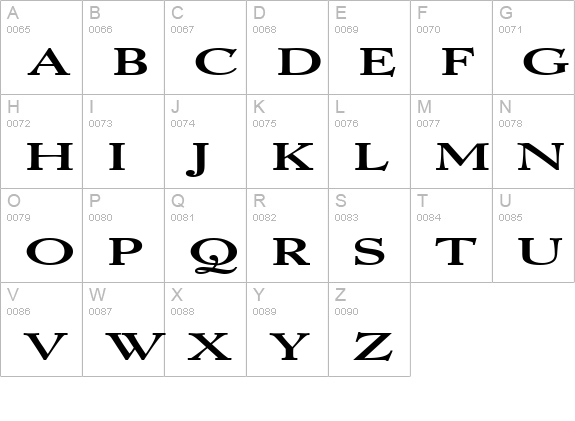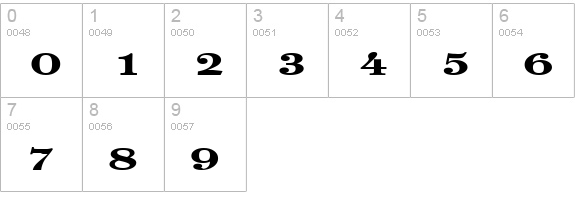
Luciano Extended Bold is a strong, high-contrast, extended-width variant in the Luciano typeface family \xE2\x80\x94 well suited to headlines, attention-grabbing titles, and strong calls-to-action.
Luciano Extended Bold is a striking and commanding typeface that demands attention with its bold and assertive presence. This extended version of the Luciano font family exudes confidence and strength, making it perfect for headlines, titles, and any design project that requires a bold statement. With its sleek lines and modern aesthetic, Luciano Extended Bold is versatile and can be used across a variety of design applications. Whether you're creating a poster, branding materials, or web graphics, this font will add a touch of sophistication and style to your work. Best of all, Luciano Extended Bold is available for free download at FontsMarket.com. Simply visit the website to access this stunning font and elevate your design projects with its bold and impactful presence. Download Luciano Extended Bold today and make a lasting impression with your typography choices.